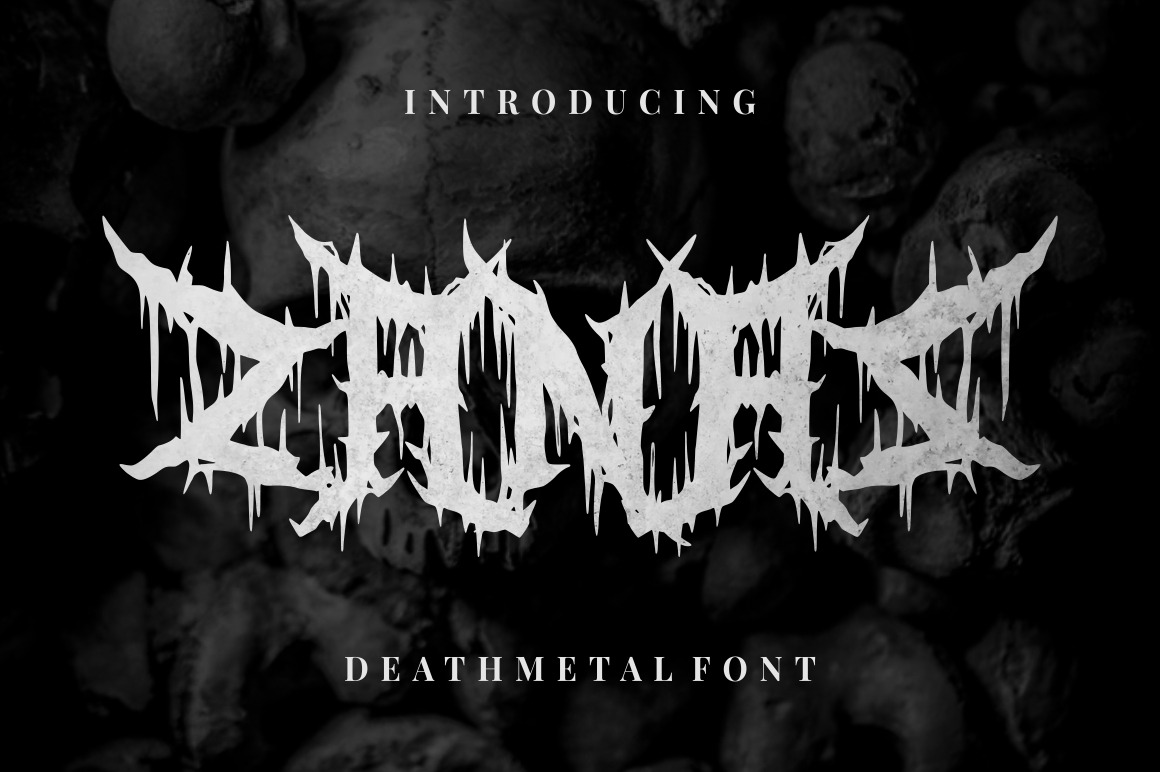
Zanaz - Deathmetal Font
Introducing Deathmetal Font: ZANAZ
Zanaz is made in a hard style and is perfect for those of you who need a Deathmetal or Underground theme font. This font is equipped with alternates to adjust the style of the text at the end of words. So it is suitable for death metal music, death metal logo design, clothing, logos, music covers, posters or other designs with the theme Deathmetal.
- Just Alphabeth Characters
- Textured font